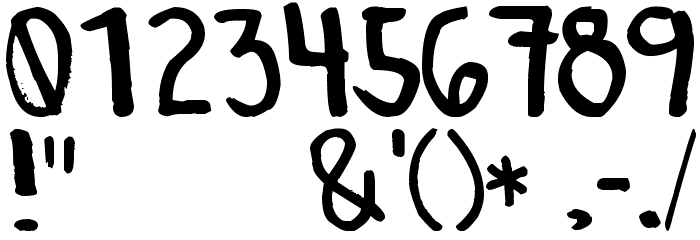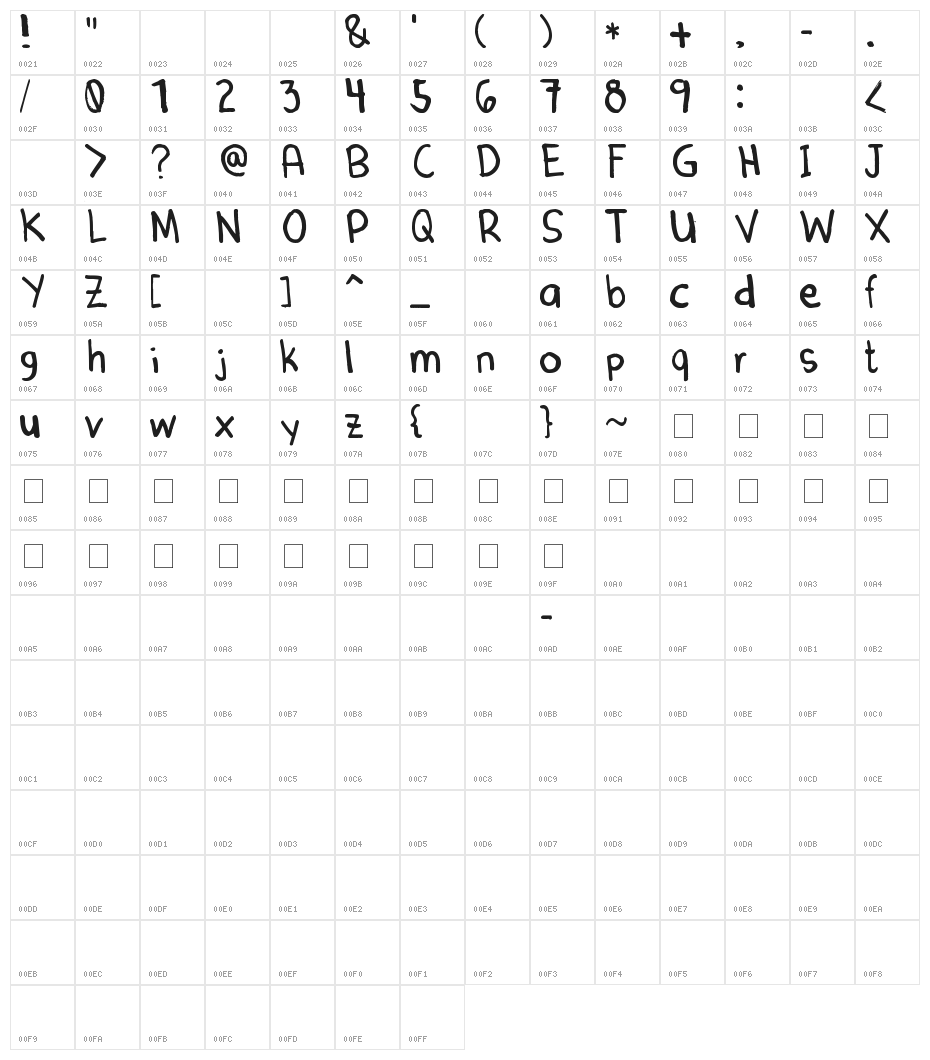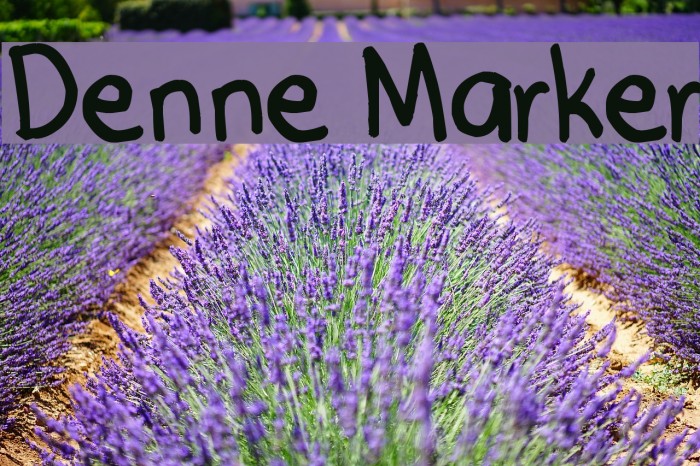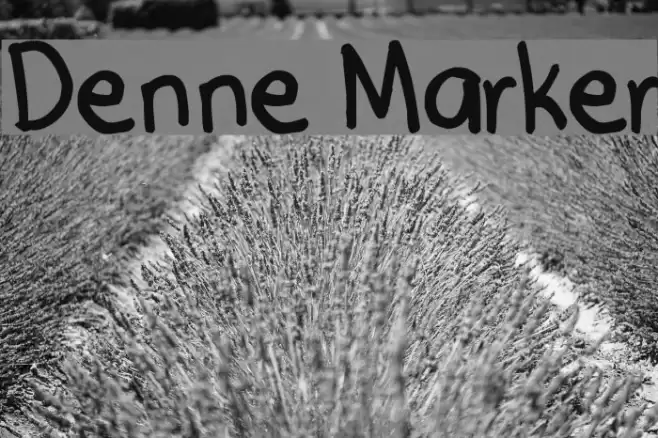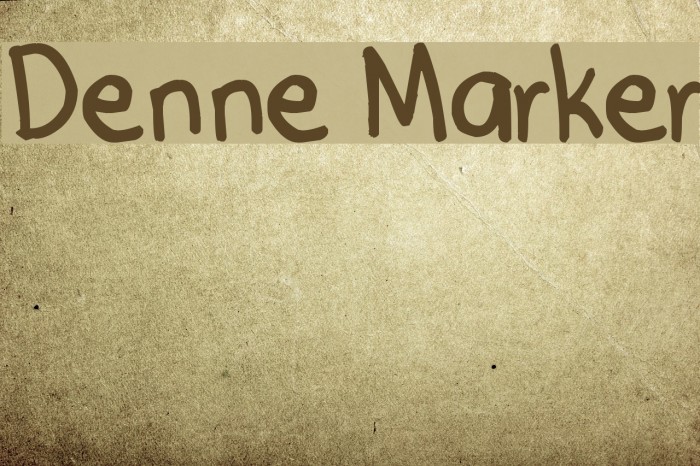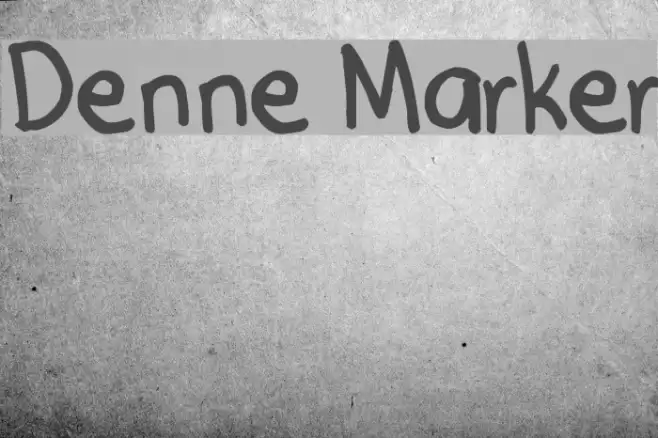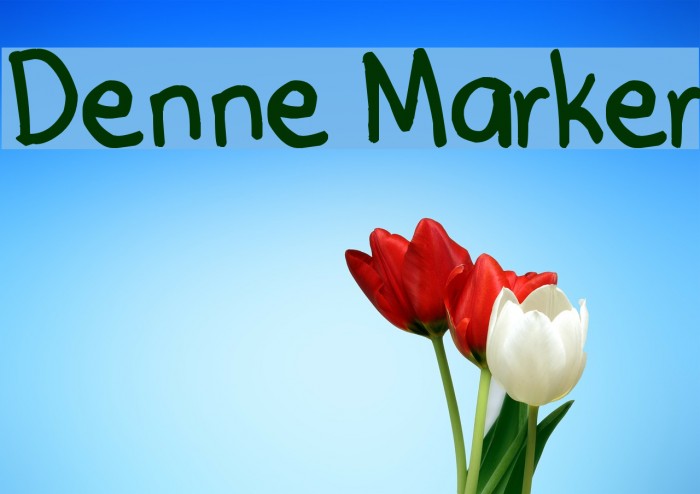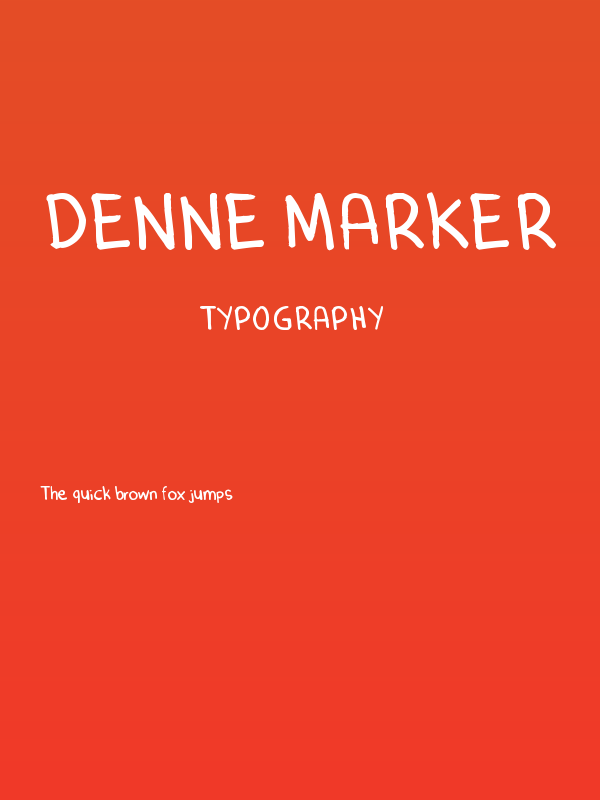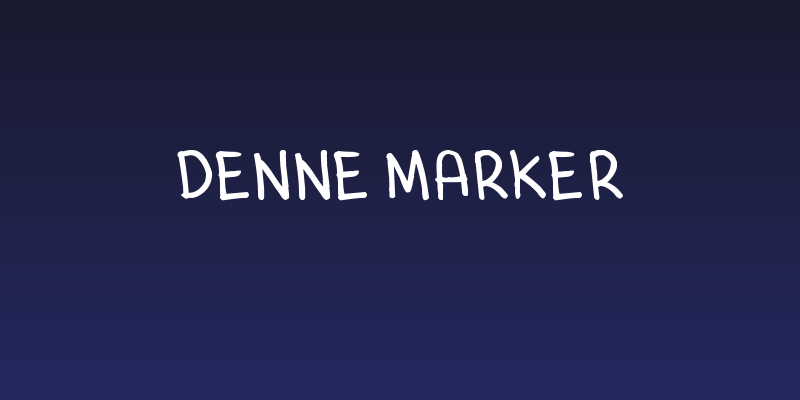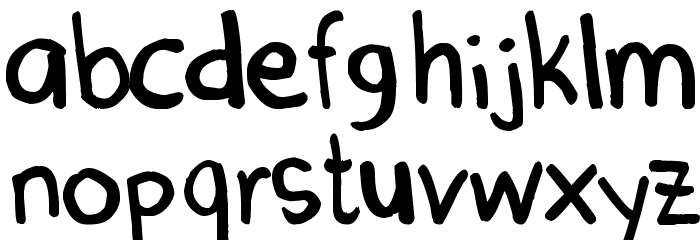
Denne Marker Font
Denne Marker Description
This playful and casual font exudes a hand-drawn, marker-like appearance, characterized by its bold and slightly uneven strokes. The letters have a friendly and approachable feel, with rounded edges and a consistent thickness that mimics the look of writing with a thick marker. The uppercase and lowercase letters maintain a uniform style, while the numbers and special characters complement the overall aesthetic. This font is ideal for projects that require a personal touch or a sense of informality, making it perfect for creative and artistic endeavors.
| Proposed Projects | Ideal for children's book covers, casual invitations, playful branding, and artistic posters. |